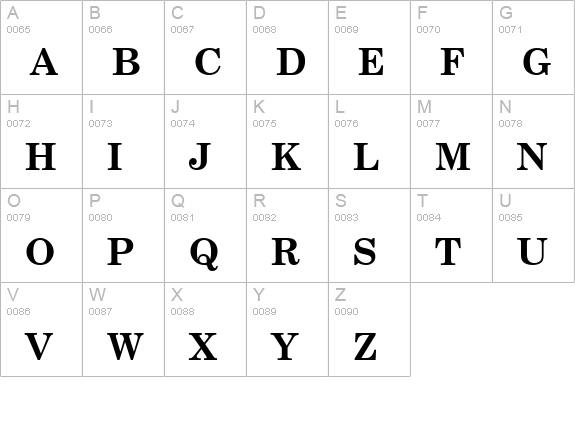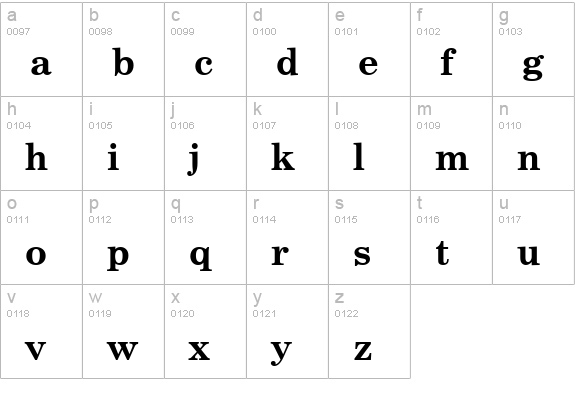
CenturySchTEE Bold is a strong, high-contrast variant in the CenturySchTEE typeface family \xE2\x80\x94 well suited to headlines, attention-grabbing titles, and strong calls-to-action.
CenturySchTEE Bold is a versatile and modern font that is perfect for making a bold statement in your designs. With its clean lines and strong presence, this typeface is ideal for headlines, titles, and branding projects. The bold weight of CenturySchTEE adds a touch of sophistication and elegance to any design, while still retaining a sense of modernity and style. What's even better is that CenturySchTEE Bold is available for free download at FontsMarket.com. This means you can easily access this high-quality font and use it in your projects without any cost. Whether you're working on a personal project or a professional design, CenturySchTEE Bold is a great choice that will elevate your work and make it stand out. Download it today and start creating stunning designs with this sleek and impactful typeface.